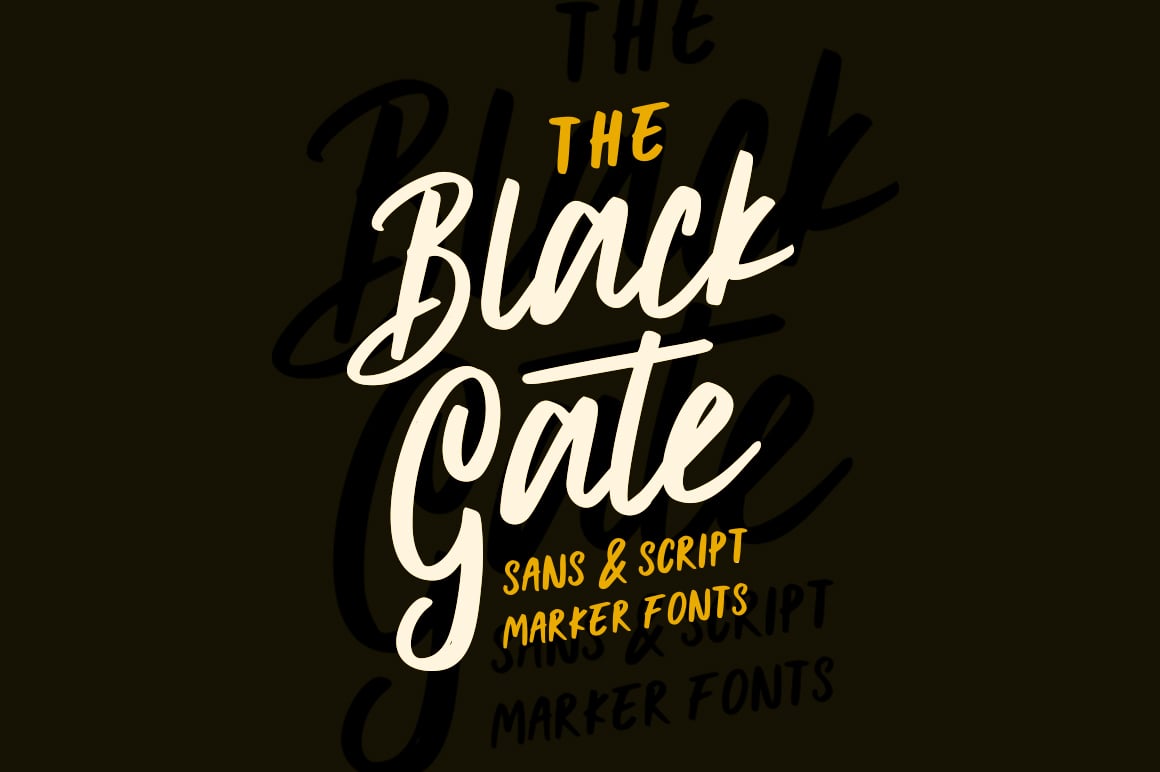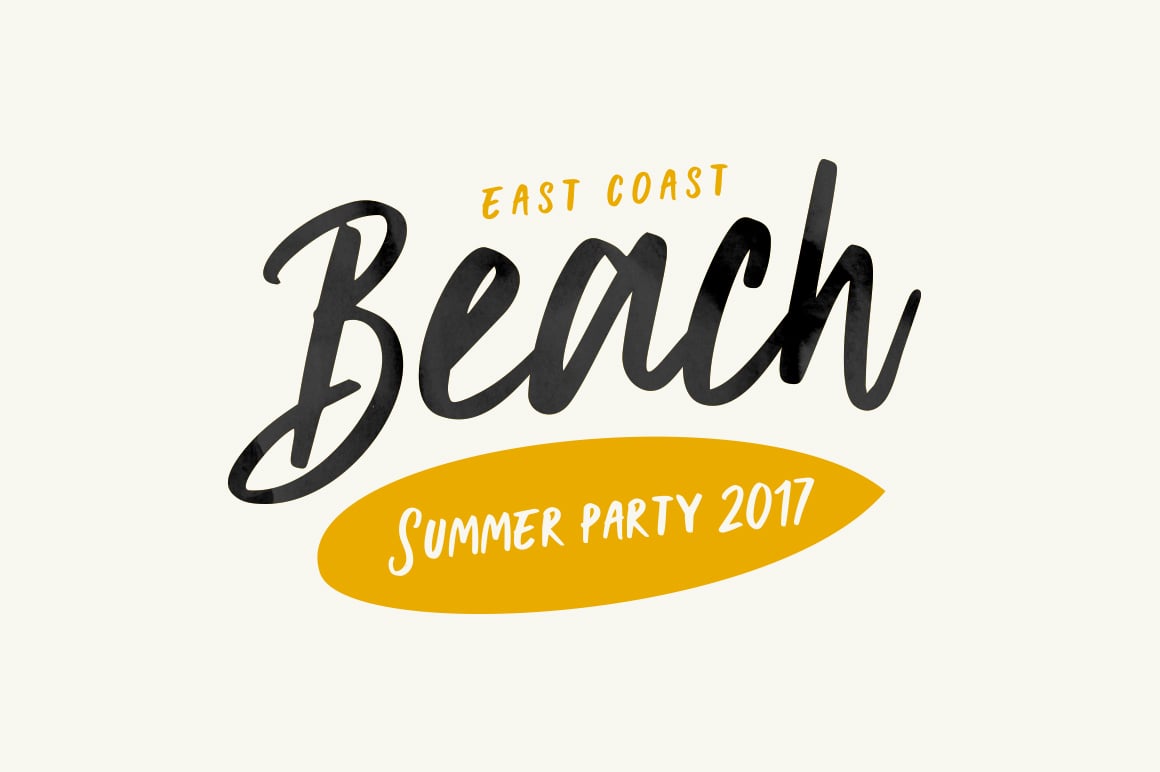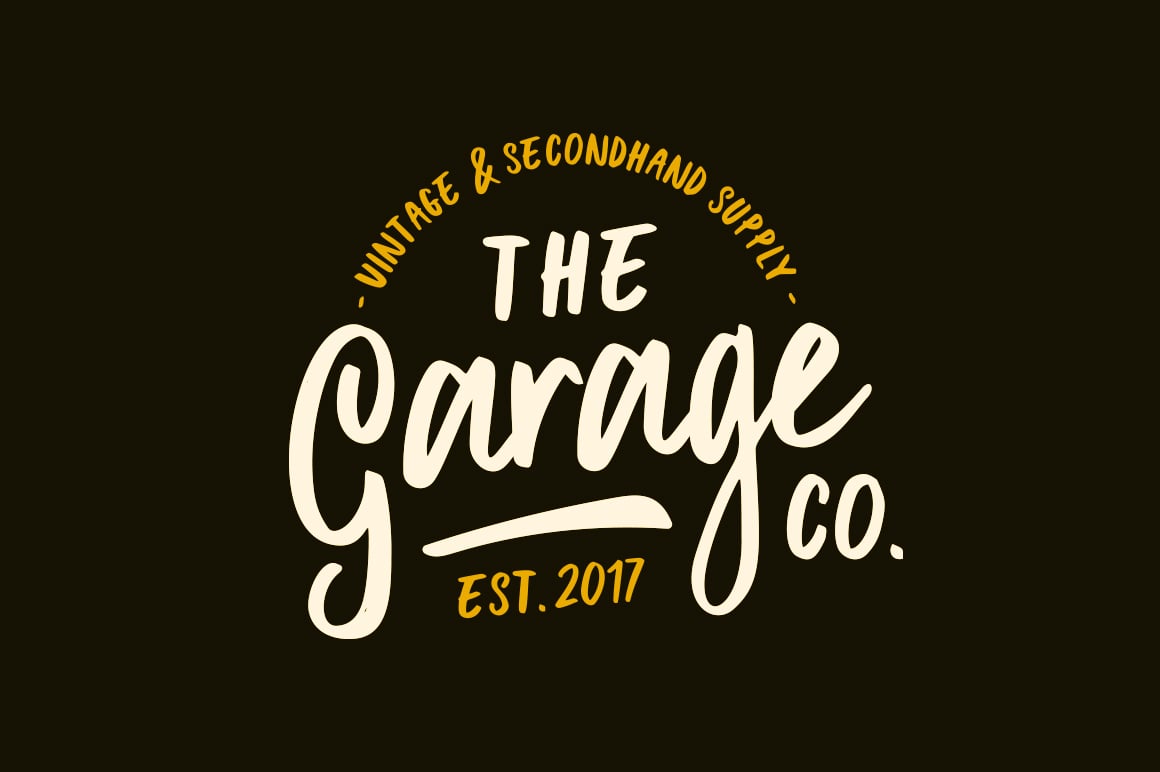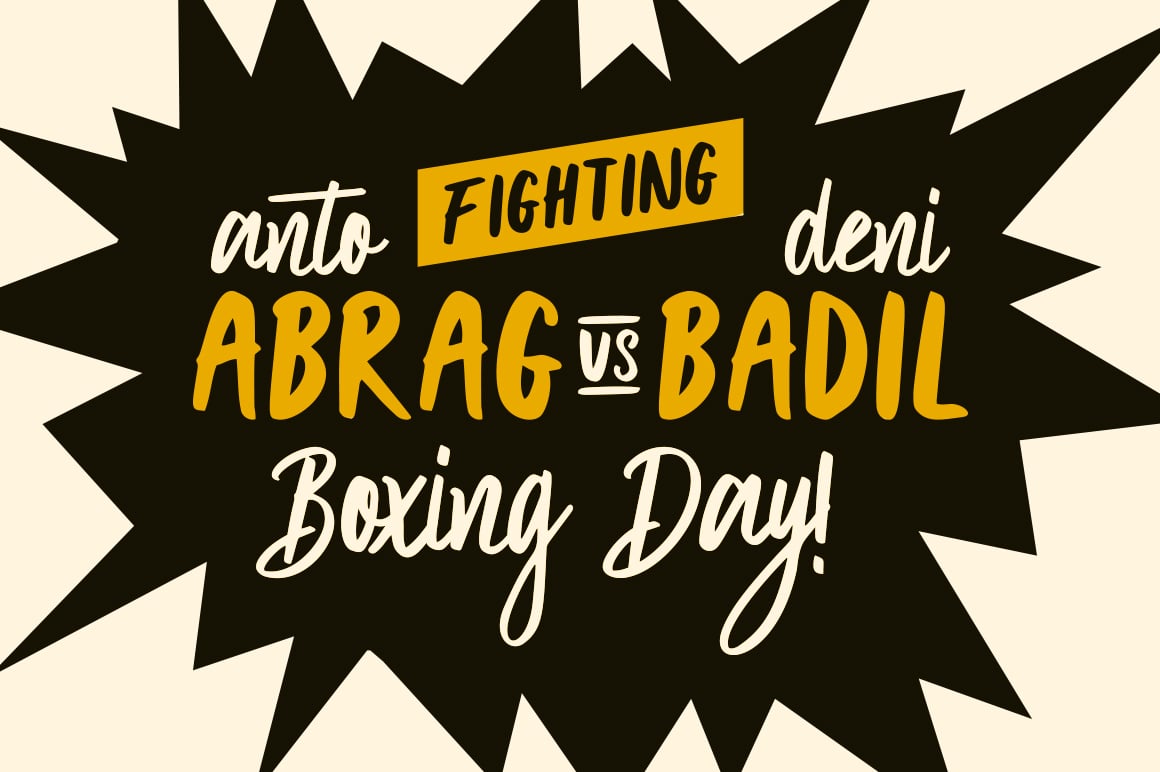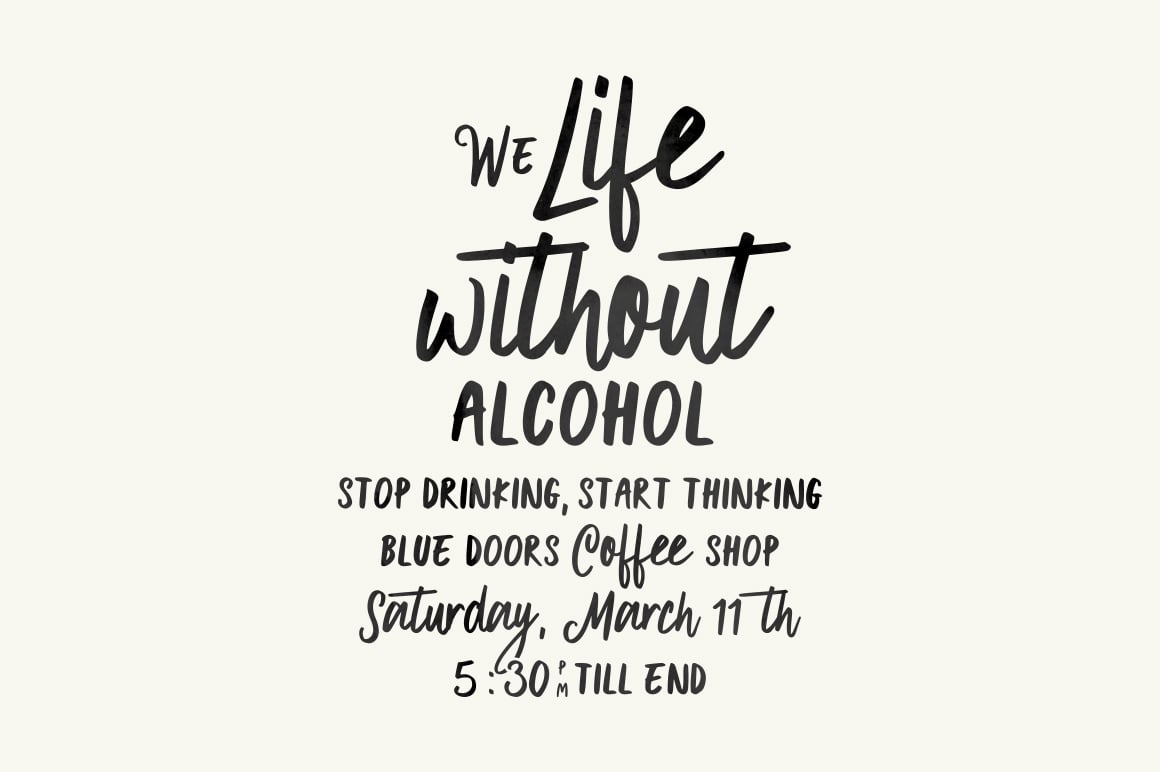
Black Gate
Black Gate is a hand made marker fonts, inspired by vintage sign and advertising. Designed to combine the two fonts, sans serif and script, and feels a natural vintage touch. This font perfect for branding, label, greeting card, advertising, badges, and many more.
Black Gate comes with uppercase, lowercase, basic punctuation and multiple language support.